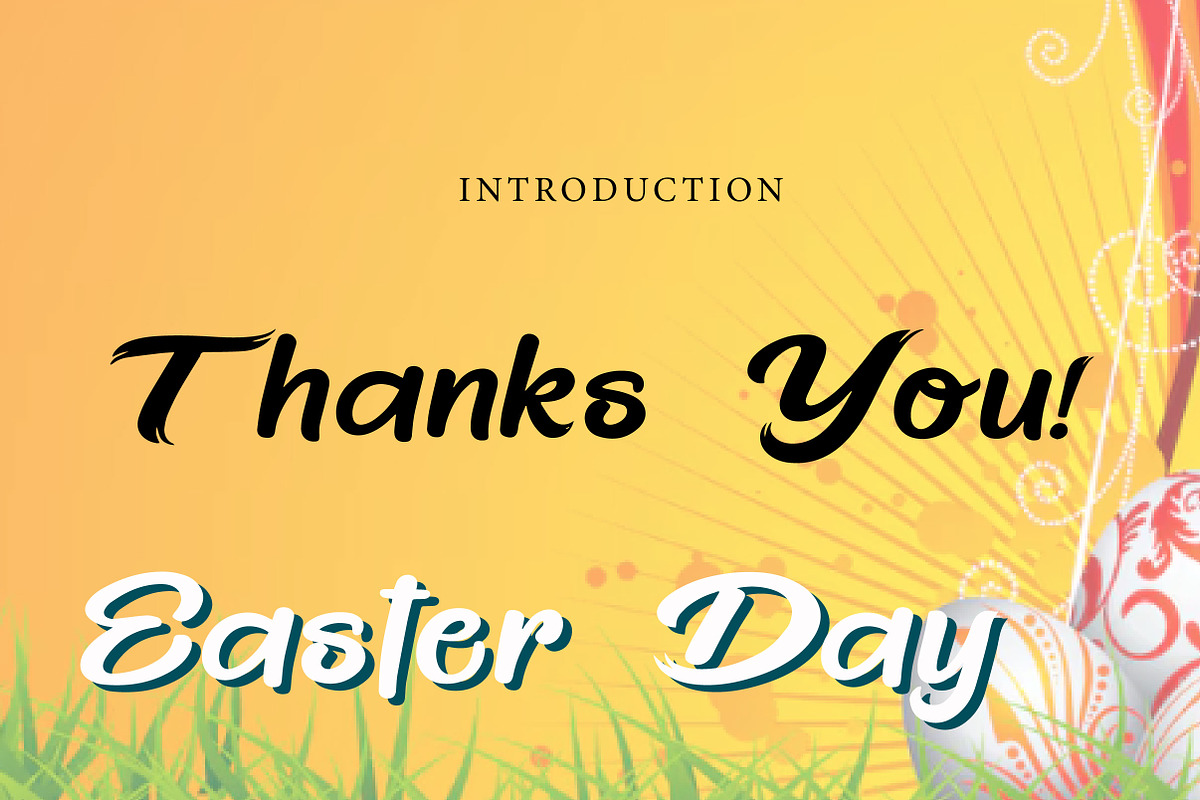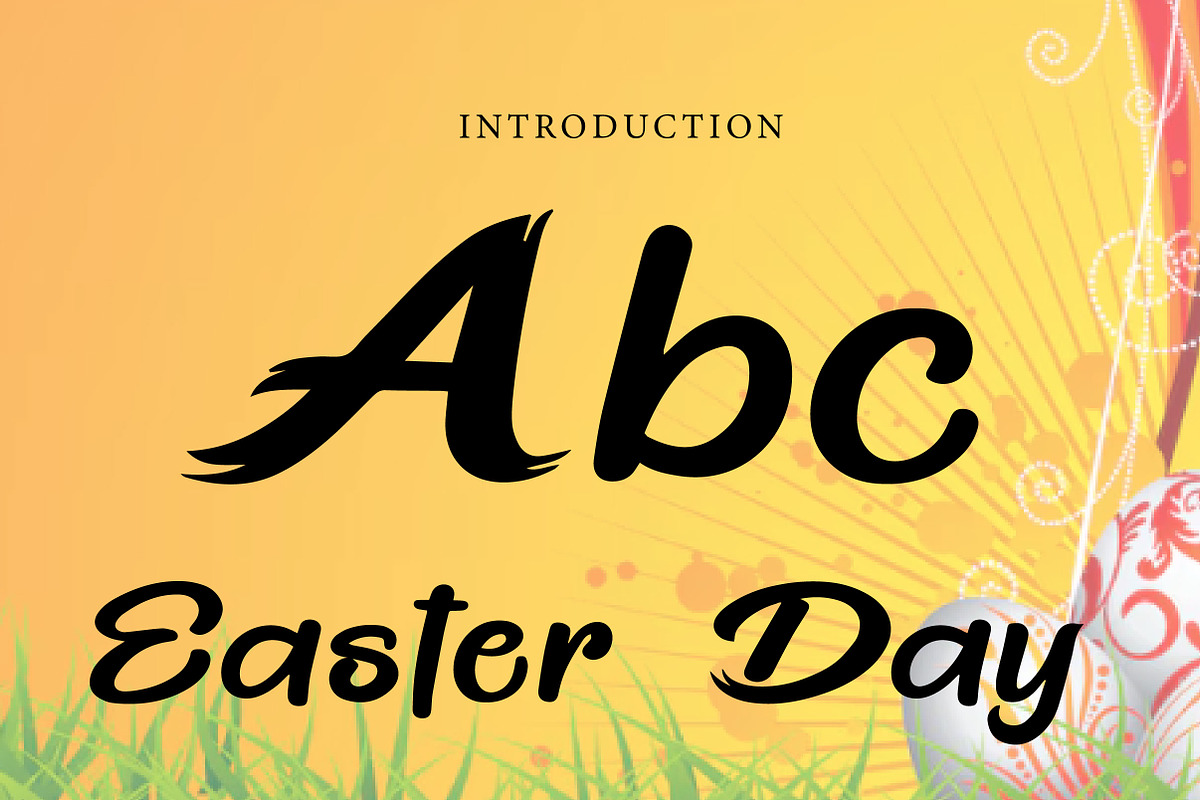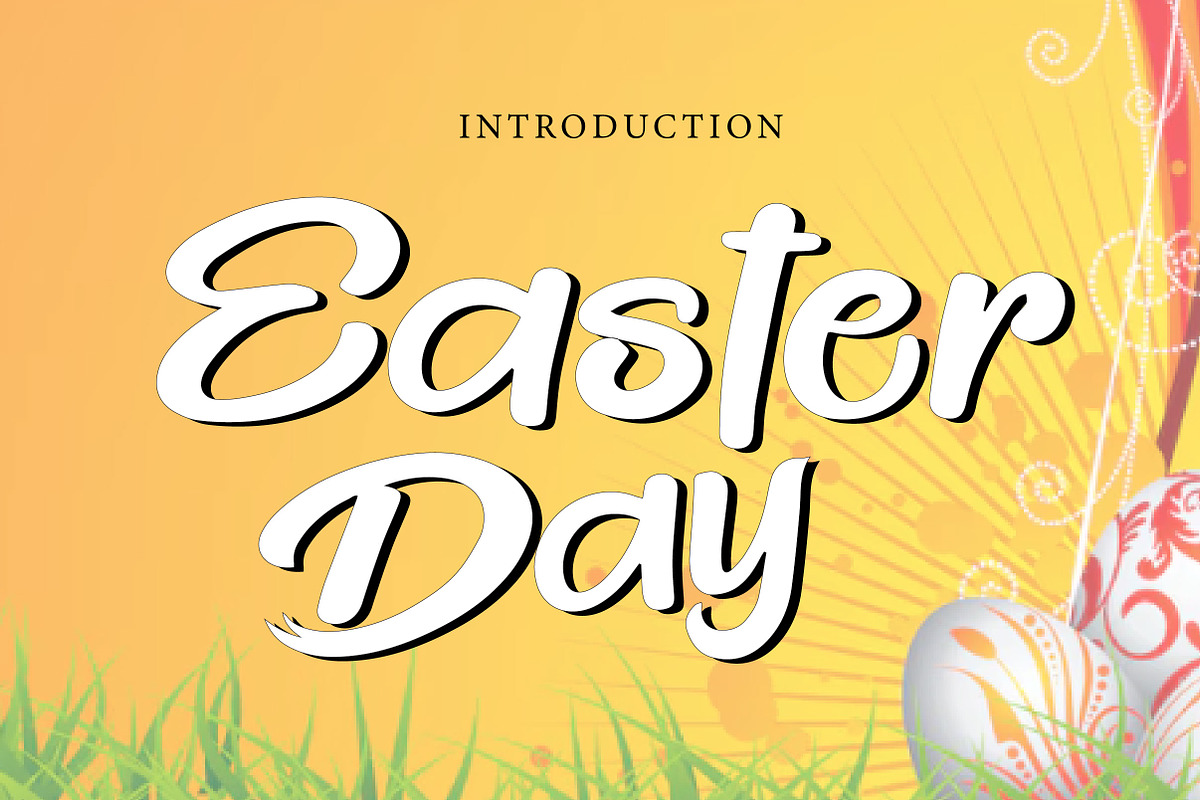
Easter Day
Easter Day – Cute Festive Script Font
Short Description
Easter Day is a cute, festive, and playful script font, perfect for holiday designs, greeting cards, invitations, branding, and cheerful creative projects.
Full Description
Easter Day is a joyful and charming script font designed to bring warmth, celebration, and personality into your designs. With its smooth flowing strokes, rounded shapes, and playful handwritten character, this font creates a cheerful and friendly look that feels perfect for seasonal and festive themes.
Its soft and expressive style makes Easter Day ideal for projects that need a sweet and lively touch. Whether you are designing Easter cards, spring event invitations, holiday branding, stickers, product packaging, social media graphics, or cute logo concepts, this font helps your typography feel more fun, welcoming, and memorable.
The handwritten flow gives your text a natural and creative appearance, while the bold curves keep it easy to read. Suitable for both print and digital use, Easter Day is a great choice for designers who want a font that feels festive, playful, and full of charm.
Perfect For Easter and spring designs Greeting cards Holiday invitations Seasonal branding Product packaging Social media graphics Stickers and labels Cute logos and headlines Craft and DIY projects Festive typography layouts Font Features Uppercase letters Lowercase letters Numbers & punctuation Cute festive script style Smooth and playful strokes Friendly and cheerful look Perfect for display use